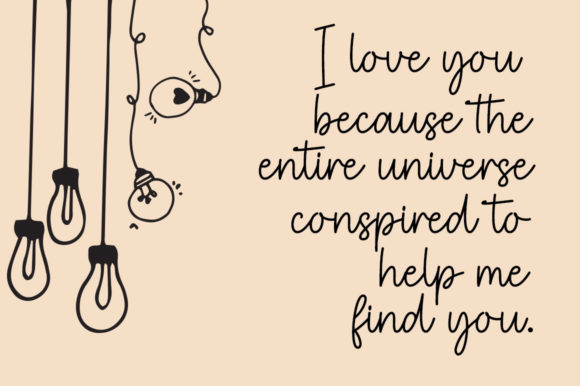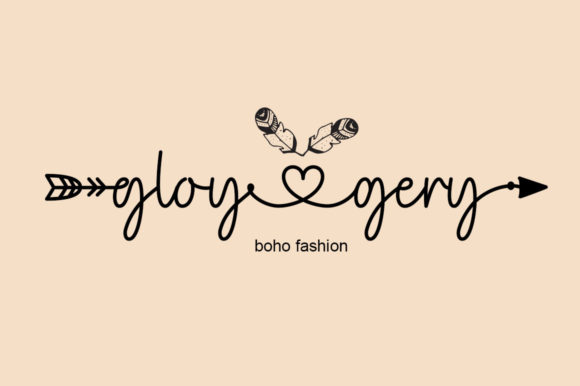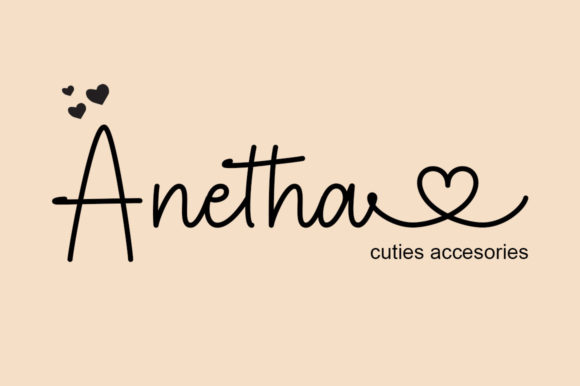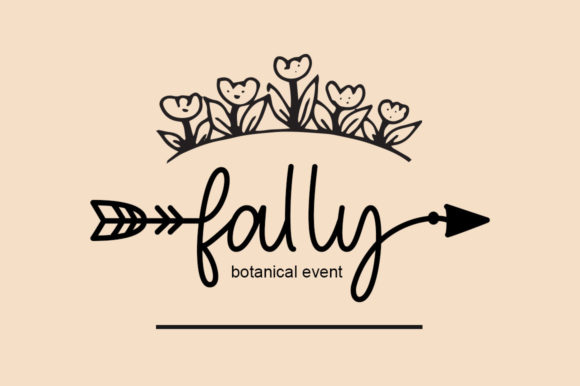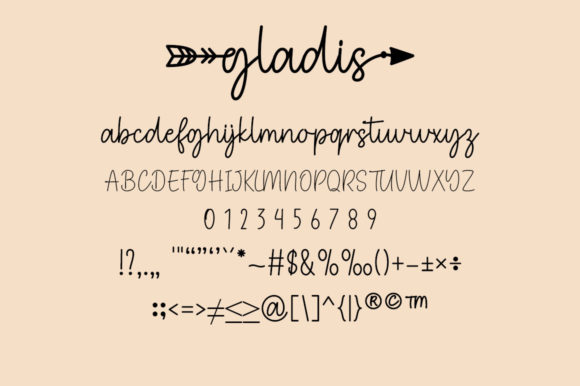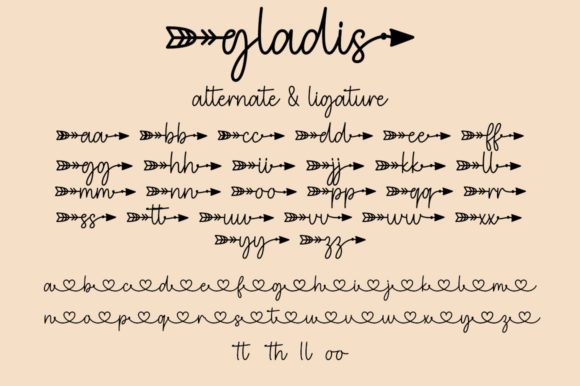
Introducing Gladis Font: The Epitome of Elegance and Sophistication
In the realm of typography, few fonts manage to convey the essence of luxury and refinement as effectively as Gladis Font. This exquisite script font is meticulously designed to bring a touch of elegance and sophistication to any project it is employed in. With its stylish alternates and ligatures, Gladis Font stands out as a versatile and chic typeface, perfect for designers and crafters aiming to imbue their work with a sense of high-end quality.
The Design Philosophy Behind Gladis
Gladis Font is not just a typeface; it is an experience. Its design is rooted in the principles of classic script typography, yet it carries a modern flair that makes it highly adaptable to contemporary design needs. Each letterform in Gladis is crafted with precision, ensuring that the font exudes a seamless flow and harmony. The inclusion of stylish alternates and ligatures further enhances its aesthetic appeal, allowing for a high degree of customization and creativity in its application.
PUA Encoding: Ease of Access to Glyphs and Swashes
One of the standout features of Gladis Font is its PUA (Private Use Area) encoding. This technical aspect is a significant advantage for designers, as it facilitates easy access to all the glyphs and swashes. PUA encoding ensures that users can effortlessly navigate through the font’s extensive character set, including alternates and ligatures, making the design process both efficient and enjoyable. This feature is particularly beneficial for projects that require a high level of detail and customization, such as branding, packaging, and advertising.
Applications of Gladis Font
The versatility of Gladis Font makes it suitable for a wide range of applications. Whether you are working on a luxury brand logo, a high-end fashion magazine, or an elegant wedding invitation, Gladis can elevate your project with its refined and sophisticated charm. Its script style is fluid and dynamic, capable of conveying a sense of movement and grace, which can be particularly effective in capturing the attention of your audience.
Branding and Logos
In the world of branding, first impressions are crucial. Gladis Font, with its elegant and luxurious feel, can help create a lasting impression. It is ideal for brands that aim to communicate sophistication, quality, and style. By incorporating Gladis into your brand’s typography, you can instantly convey a sense of premium value and exclusivity.
Stationery and Invitations
For stationery, invitations, and other printed materials, Gladis offers a level of refinement that is hard to match. Its beautiful script and swashes can add a personal touch to any piece, making it perfect for formal events, corporate communications, or simply to add a touch of class to everyday stationery.
Digital Media
Gladis Font is not limited to print; it also shines in digital media. Its clear and elegant design ensures that it remains legible across various digital platforms, from website headers and blog posts to social media graphics and email newsletters. In an online world where standing out is key, Gladis can help elevate your digital content.
Gladis Font is a remarkable addition to the world of typography, offering a unique blend of elegance, sophistication, and versatility. Its stylish alternates, ligatures, and PUA encoding make it an invaluable tool for designers and crafters looking to add a touch of luxury to their projects. Whether you are working on branding, stationery, digital media, or any other design endeavor, Gladis Font is sure to exceed your expectations. Embrace the beauty and refinement of Gladis in your next project and experience the transformative power of exquisite typography.